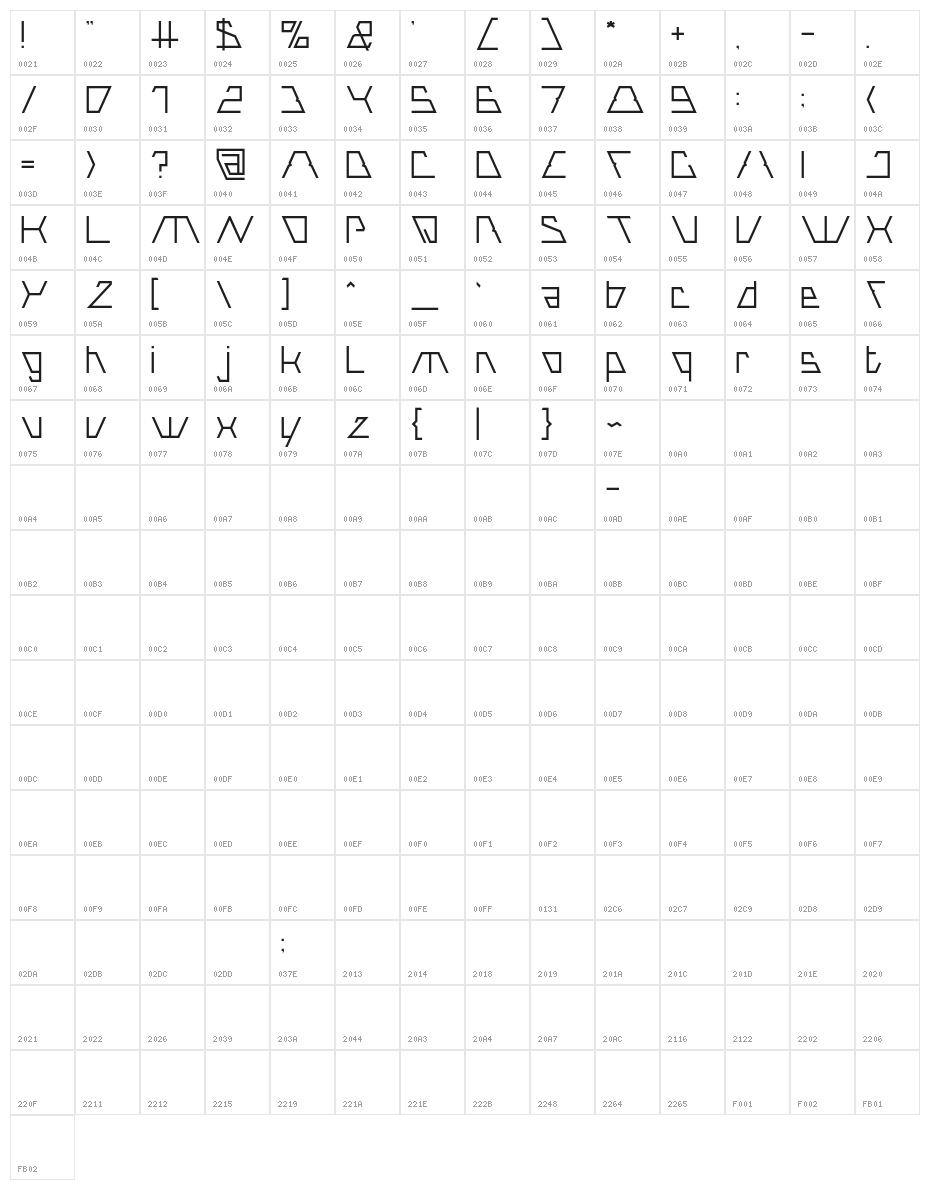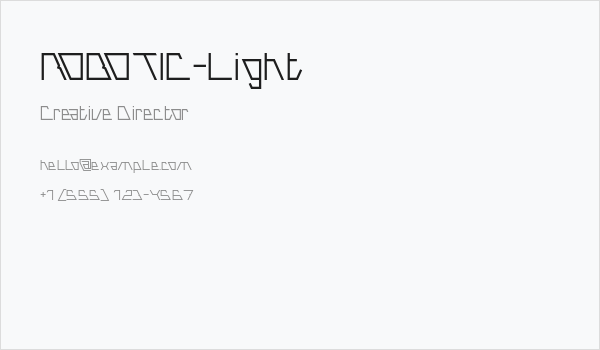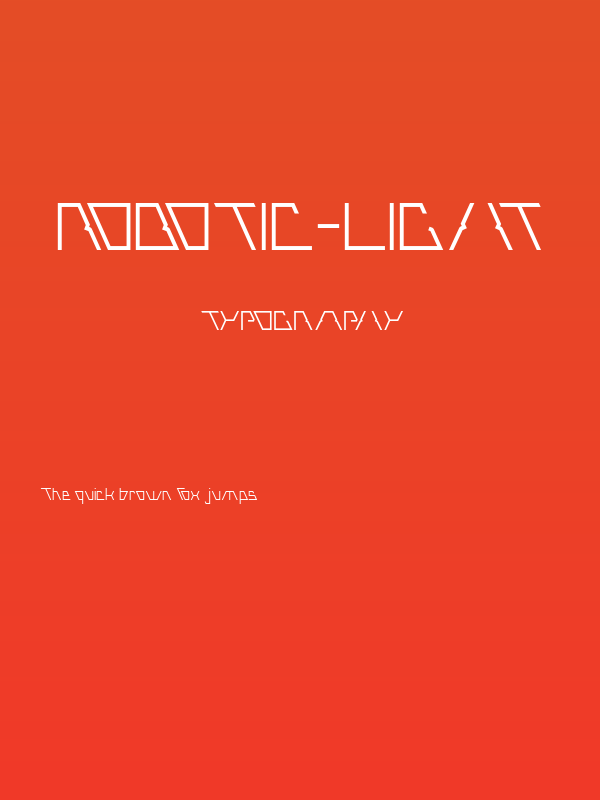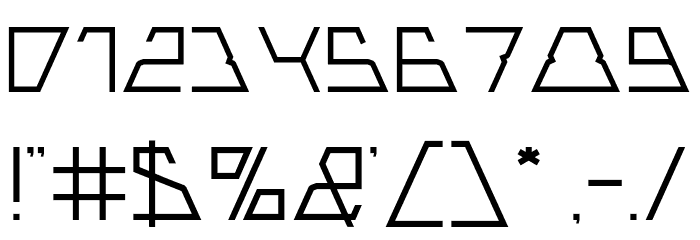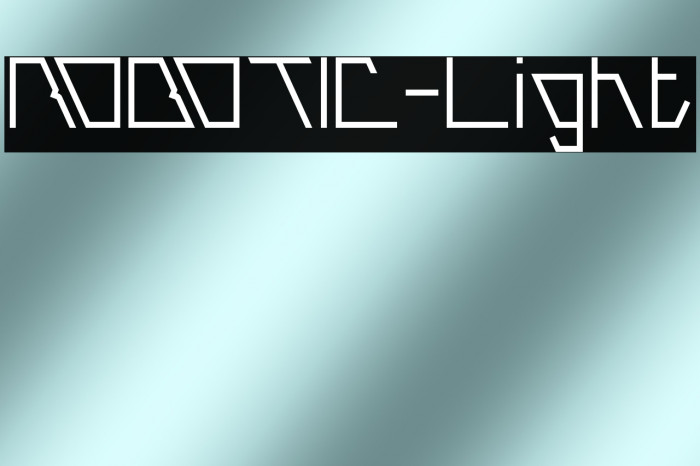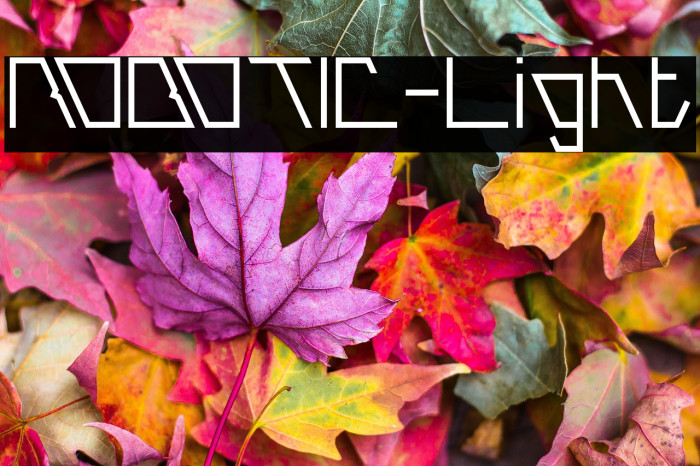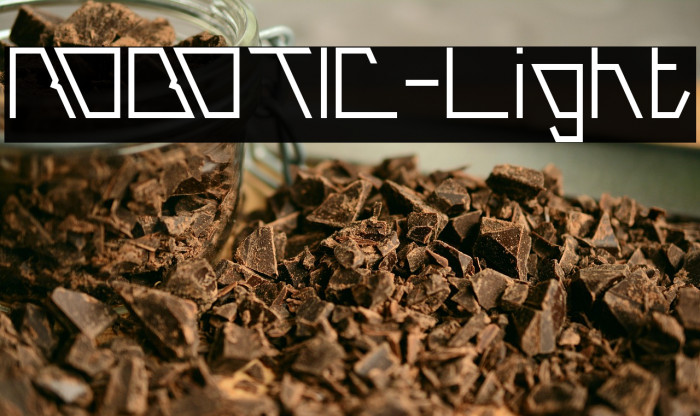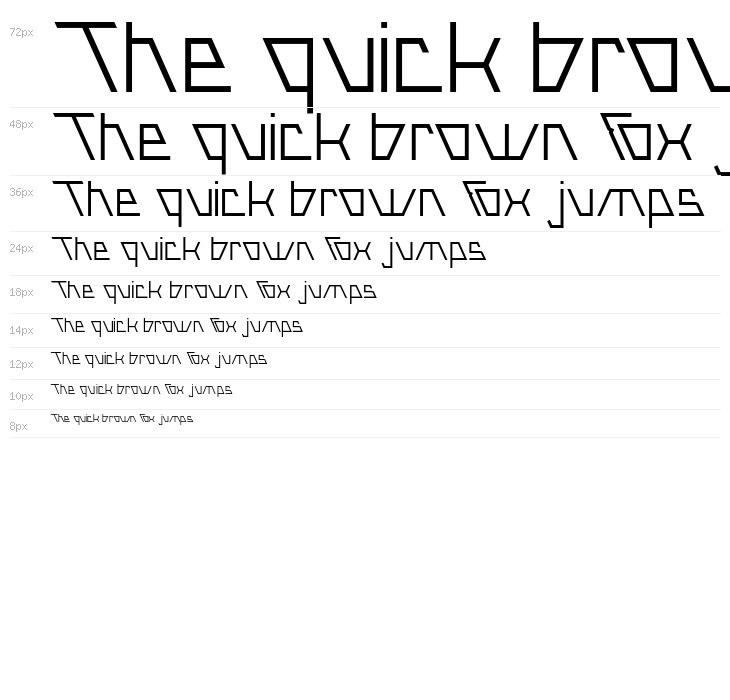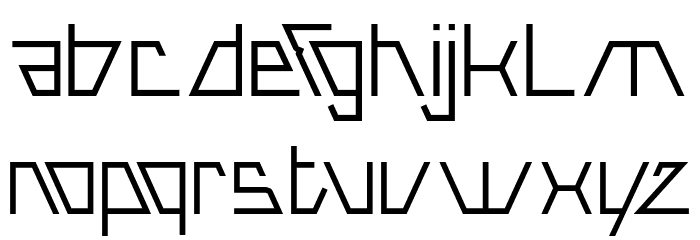
ROBOTIC-Light Font
ROBOTIC-Light Description
This font features a futuristic and angular design, characterized by sharp edges and geometric shapes. The uppercase and lowercase letters maintain a consistent style, with a distinct robotic and mechanical feel. The numerals and special characters follow the same design principles, ensuring uniformity across the typeface. The font's unique aesthetic makes it stand out, with a modern and tech-inspired look that is both bold and eye-catching. Its structure is clean and precise, making it suitable for digital and print media where a contemporary and innovative appearance is desired.
ROBOTIC-LIGHT UPPERCASE
ROBOTIC-LIGHT LOWERCASE
ROBOTIC-LIGHT OTHER CHARS
| Proposed Projects | Ideal for tech branding, sci-fi posters, video game titles, and digital interfaces. |